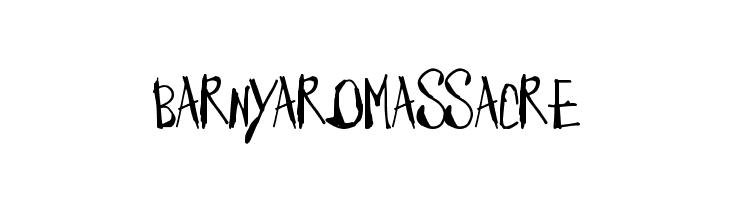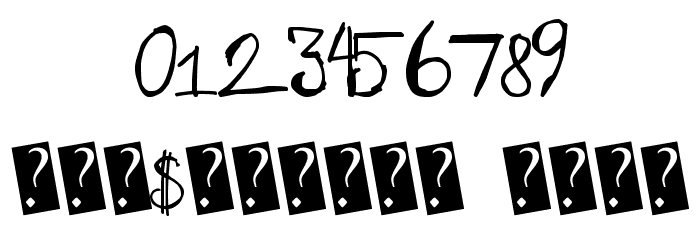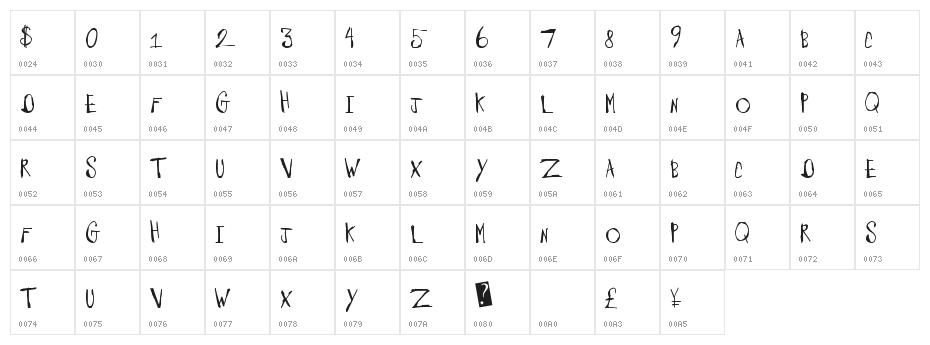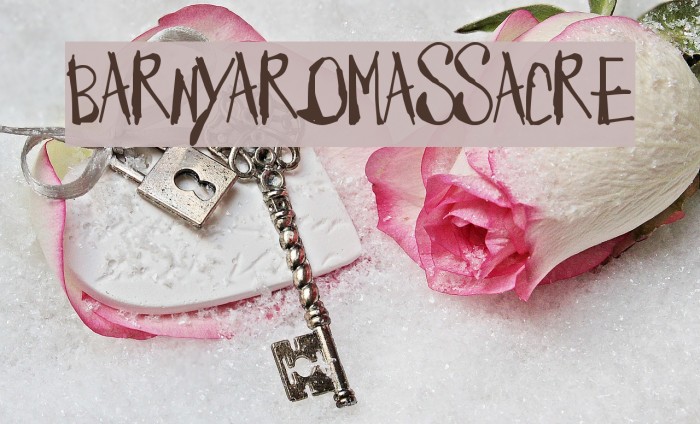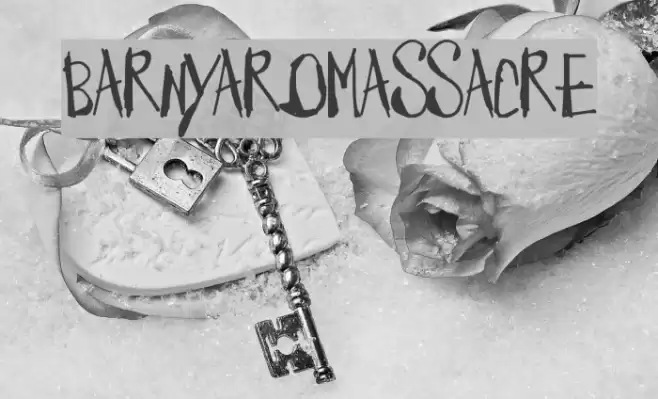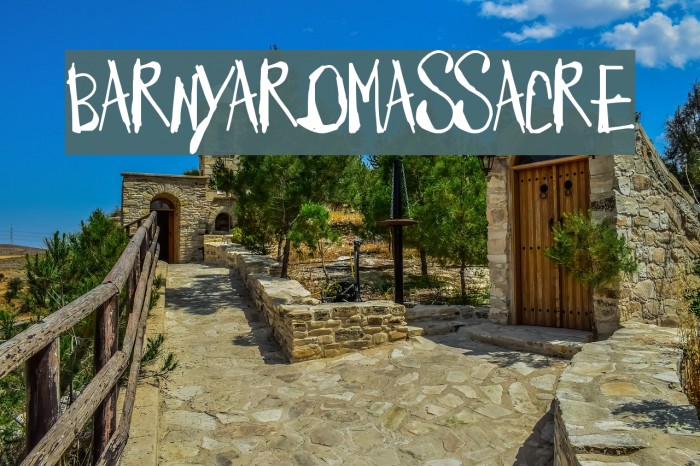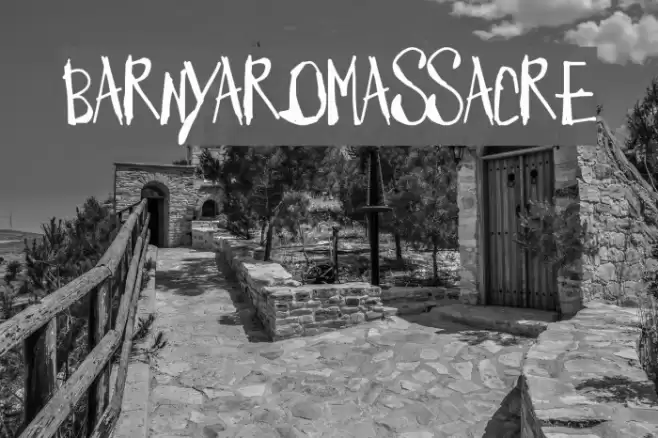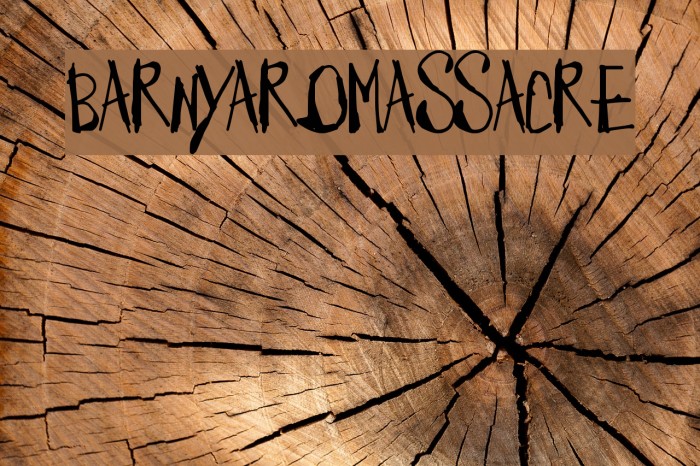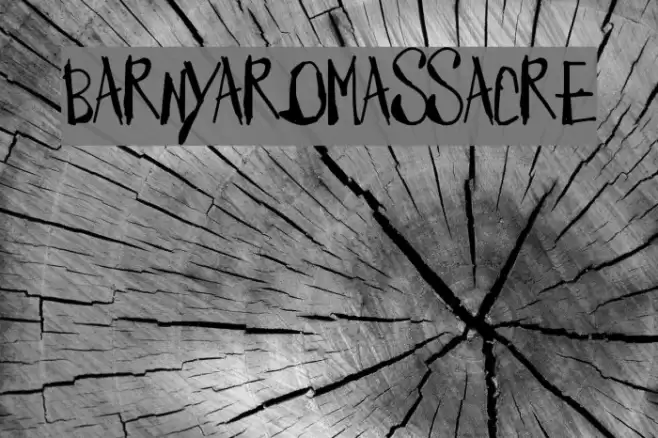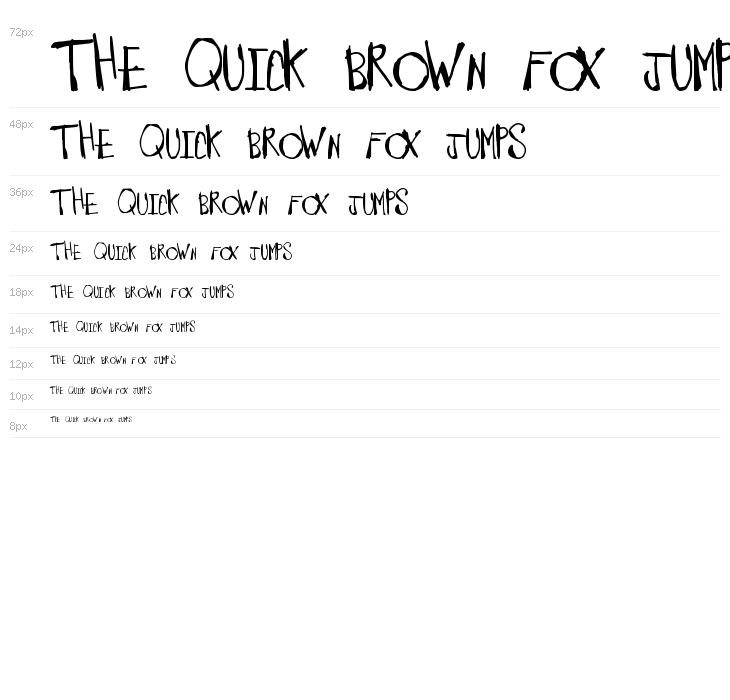
BarnyardMassacre Font
BarnyardMassacre Description
This font exhibits a playful and chaotic handwritten style, characterized by uneven strokes and a slightly distressed appearance. The letters are irregular in shape, giving them a dynamic and energetic feel. The uppercase and lowercase letters maintain a consistent style, with exaggerated curves and angles that add to the font's quirky personality. Numbers and special characters follow the same design principles, ensuring a cohesive look across all glyphs. The font's unique style makes it stand out, perfect for projects that require a touch of whimsy and creativity.
Proposed ProjectsIdeal for children's book covers, playful posters, creative branding, and unique invitations.